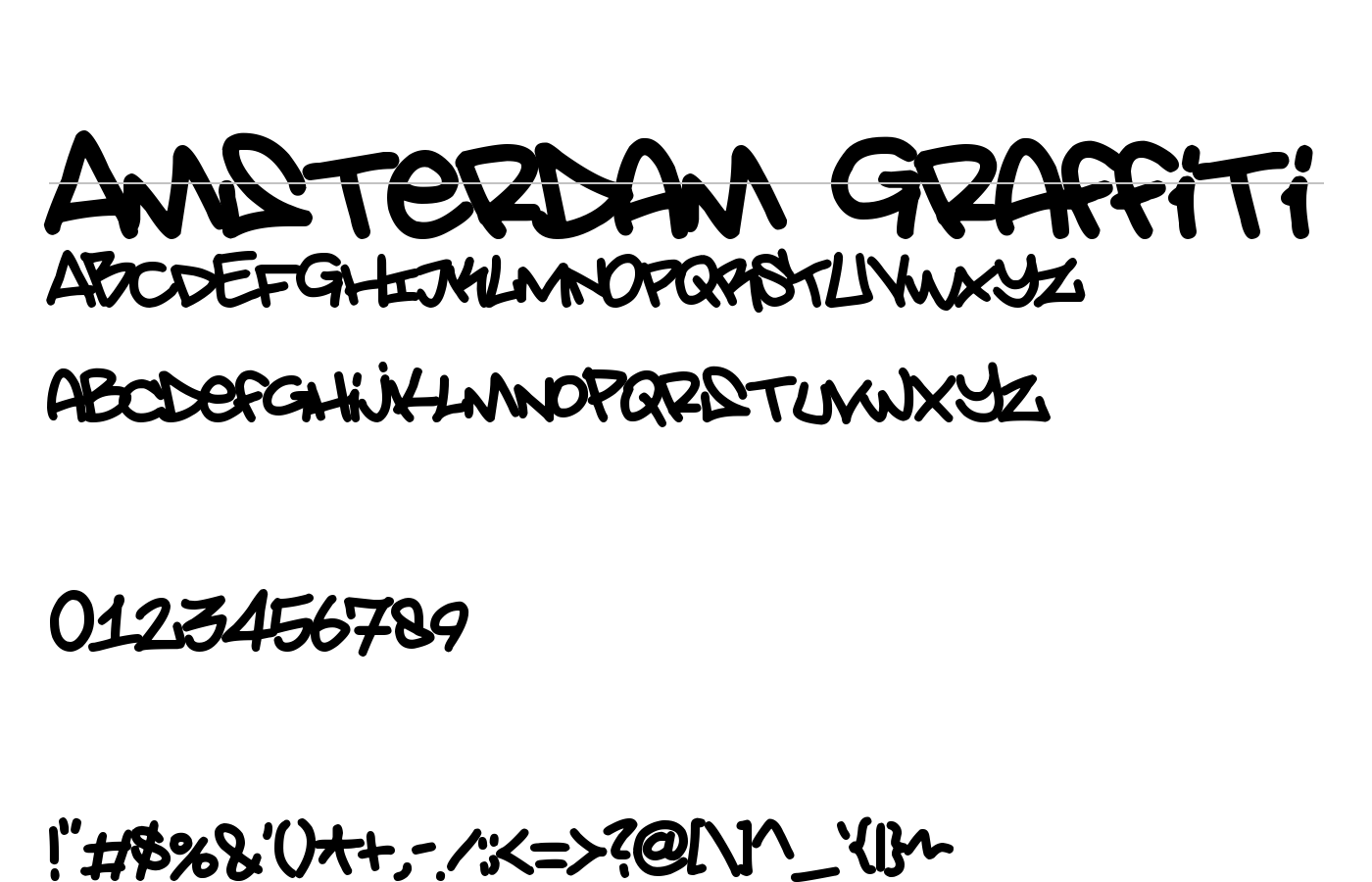
Amsterdam Graffiti Font is a bold, playful sans serif that captures the raw, energetic spirit of street art with its irregular, hand-drawn strokes and dynamic letterforms. Its casual, urban style works great for creative branding, posters, and projects that want to convey an edgy, youthful vibe. This font's informal and lively personality makes it ideal for designs needing a standout, unconventional look.
Amsterdam Graffiti Font
About Amsterdam Graffiti Font